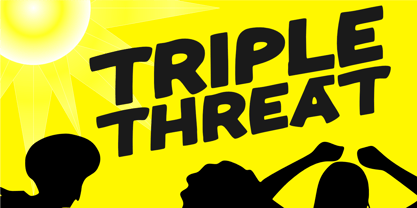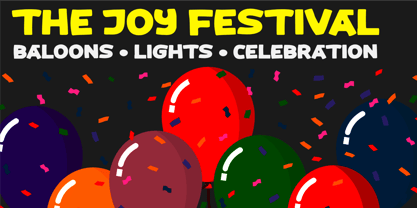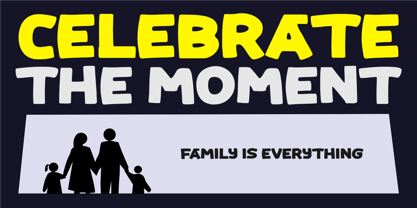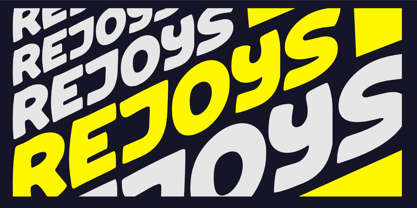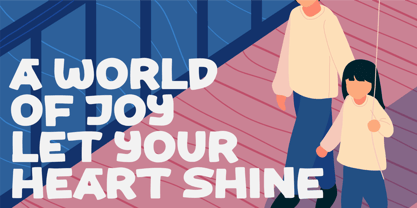
Rejoys
by Olivetype
The Rejoys Font Family was designed by Nurul Hidayani and published by Olivetype. Rejoys contains 1 styles. More about this family
Rejoys is a vibrant and expressive display font designed to capture the spirit of celebration and happiness. With its lively shapes and energetic personality, Rejoys brings a playful yet bold presence to any design. Every letter feels full of life, making it perfect for projects that aim to inspire joy, excitement, and positive vibes. Whether you're creating party posters, cheerful branding, social media graphics, greeting cards, festival designs, or fun packaging, Rejoys adds a burst of energy and warmth that instantly grabs attention. Its unique style balances creativity and readability, allowing designers to build eye-catching typography while maintaining a friendly, uplifting tone. Let your designs celebrate the moment and spread positivity with Rejoys — a font made for joy, fun, and unforgettable impressions.
Designers: Nurul Hidayani
Foundry: Olivetype